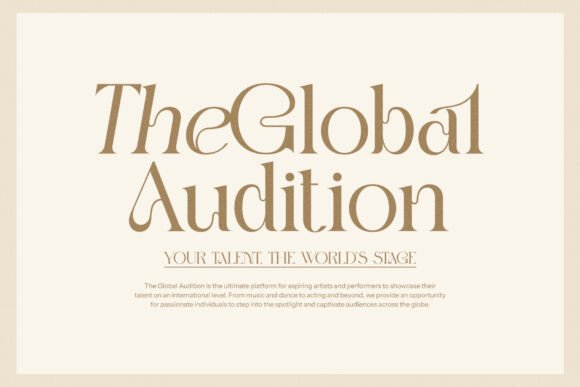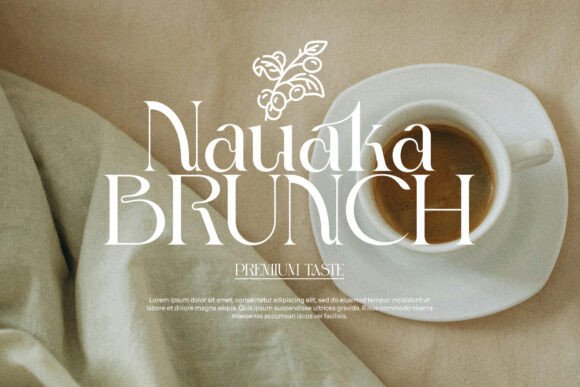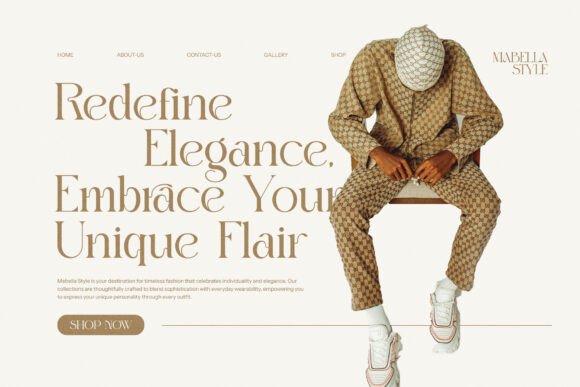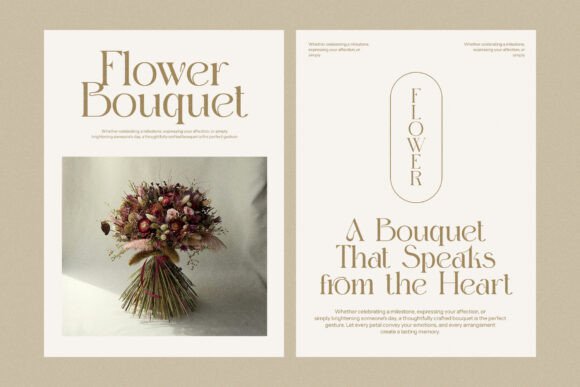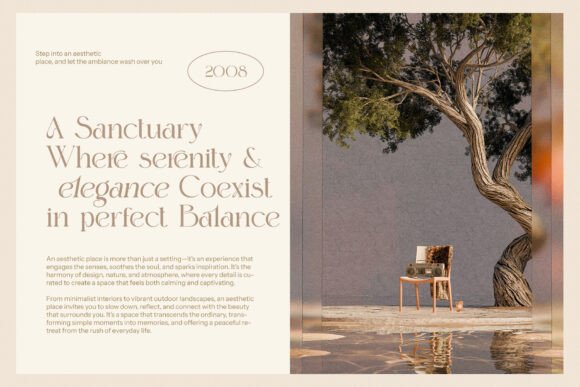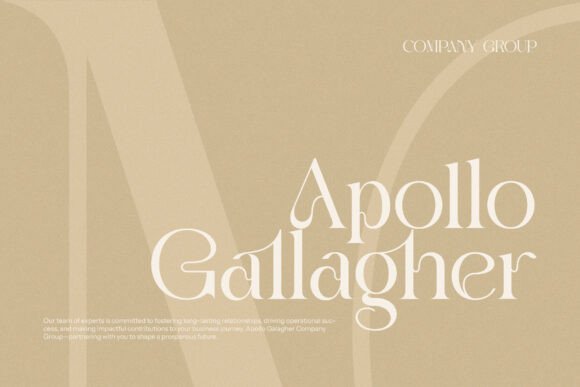
Introduction to Miglen Font
Miglen is a refined and modern typeface that combines timeless elegance with contemporary appeal.
Designed with exceptional attention to detail, Miglen features delicate serifs and graceful curves, creating a perfect balance between tradition and modernity Its distinctive ligatures and alternate characters add an artistic touch, giving your designs a unique, sophisticated flair.
Key Features of Miglen Font
Why Choose Miglen Font?